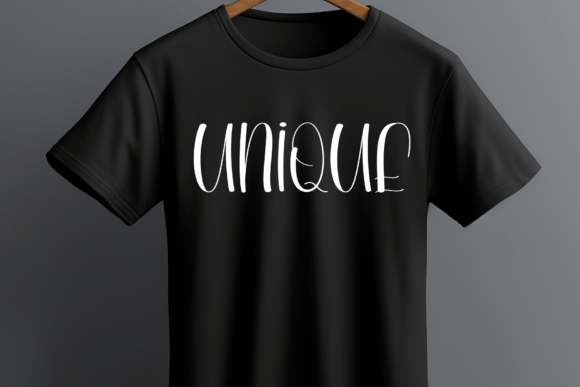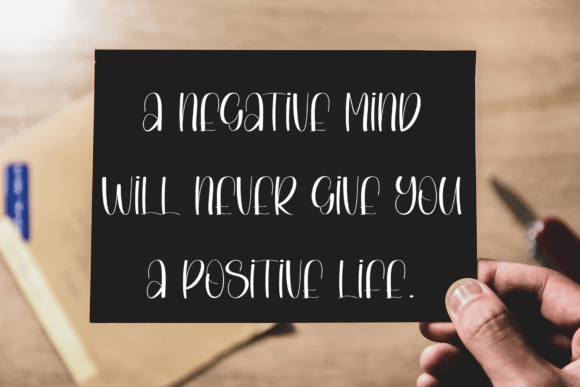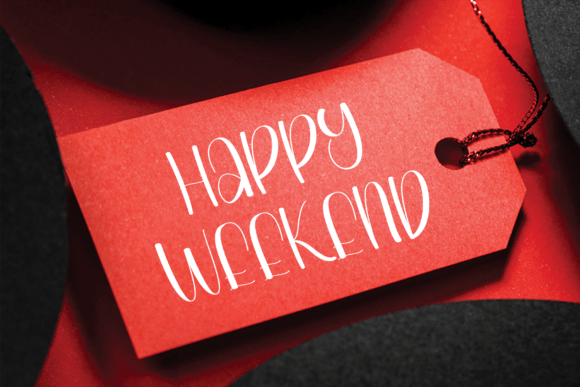
Introduction to Midnight Vacation Font
Have you ever found yourself in the midst of a creative crisis, staring blankly at a blank canvas or a blank document, desperate for inspiration? For many designers, this is a familiar feeling, one that can strike at any moment. But what if you had the perfect tool to spark your imagination and bring your ideas to life? Enter the enchanting Midnight Vacation Font, a whimsically hand-sketched display font that’s sure to captivate your senses and ignite your creativity.
This high-quality font is more than just a design resource – it’s a key to unlocking new possibilities and elevating your creative projects to the next level. With its transparent background and free download, you can easily incorporate it into your designs, adding a touch of playfulness and charm to your work. Whether you’re crafting wedding invitations, constructing heartfelt cards, or simply looking for a new way to express yourself, the Midnight Vacation Font is the perfect companion for your creative journey.
Key Features of Midnight Vacation Font
- Unique, hand-drawn style with a transparent background, perfect for adding a touch of elegance to your design resource.
- Includes 50+ glyphs, making it a versatile font for various creative projects, from logos to typography-based designs.
- Suitable for use in a variety of design contexts, including branding, advertising, and editorial content.
Honest Review: Midnight Vacation Font
One of the things that works well with this font is its versatility. It’s perfect for projects that require a touch of whimsy and playfulness. The font is available in a range of weights and styles, making it easy to customize to suit your needs.
- ✨ Works well for projects with a transparent background, allowing the font to shine.
- ✨ Great for creating eye-catching headlines and titles.
- ✨ Available in a range of weights and styles, making it easy to customize.
However, I did notice a few limitations. The font doesn’t include a complete character set, which can be a problem if you need to typeset text in a specific language.
- ⚠️ Limited character set, may not be suitable for projects that require a full range of characters.
Overall, I’d say the Midnight Vacation Font is a solid addition to any designer’s toolkit. While it may not be perfect, it’s a great free download that’s perfect for creative projects that require a touch of fun and whimsy.
Tips for Getting the Most Out of the Midnight Vacation Font
To maximize the use of the Midnight Vacation Font, consider the following tips:
- Use a transparent background to achieve a clean and minimalist design.
- Experiment with different font sizes and colors to create visual interest.
- Combine the font with other design elements, such as images and shapes, to enhance your creative project.
The Midnight Vacation Font is suitable for a variety of design projects, including:
- Travel and tourism marketing materials.
- Food and beverage branding.
- Event and wedding invitations.